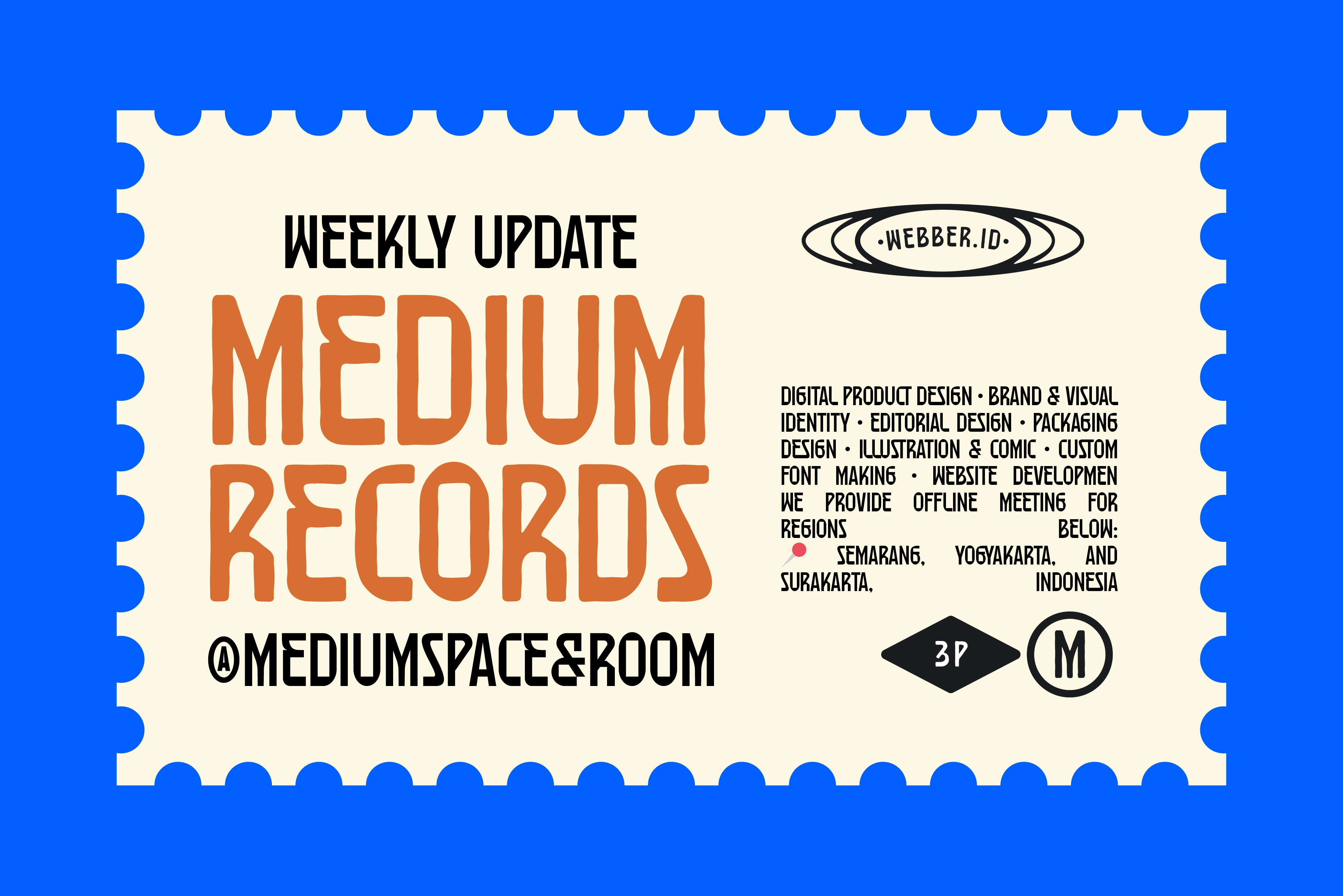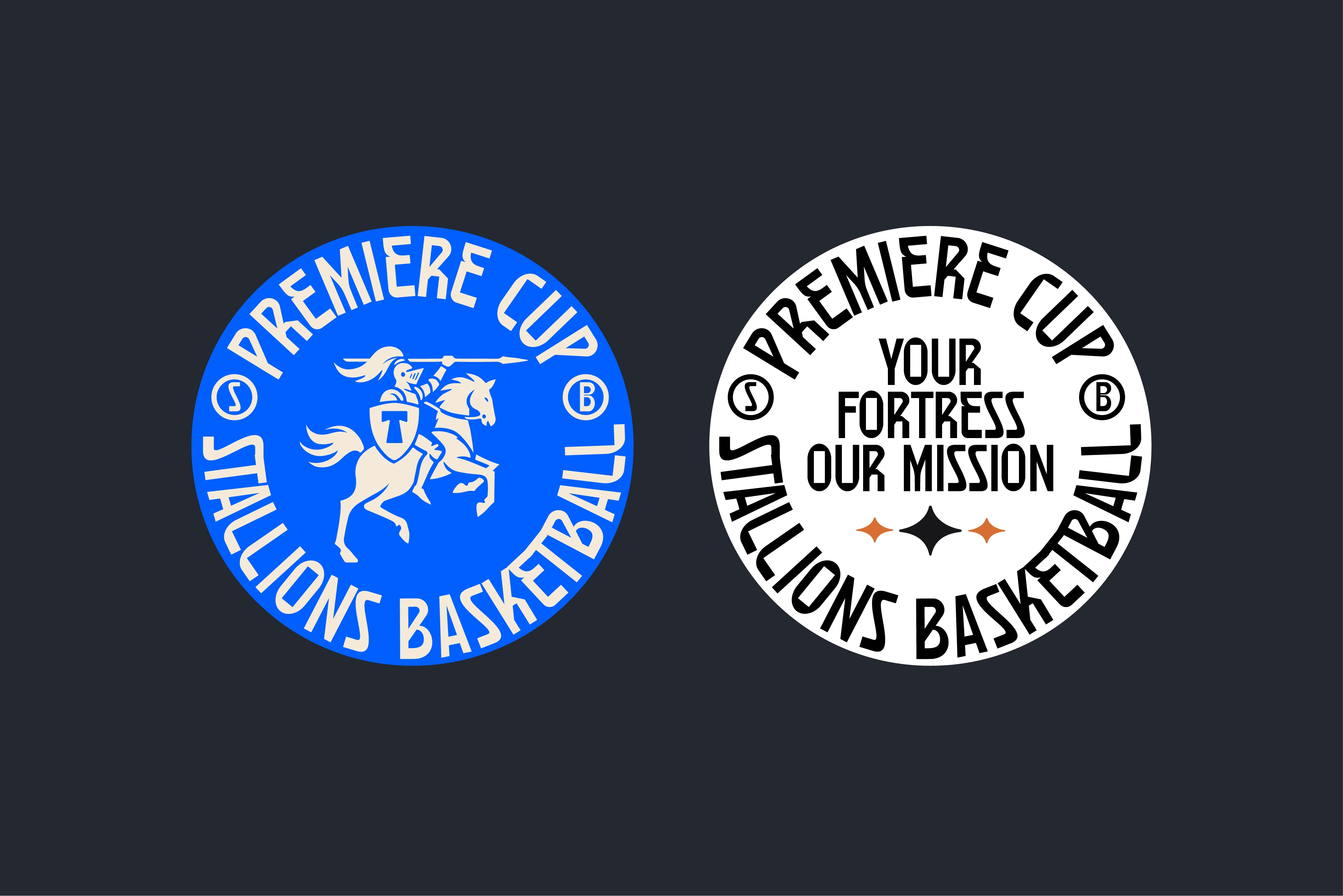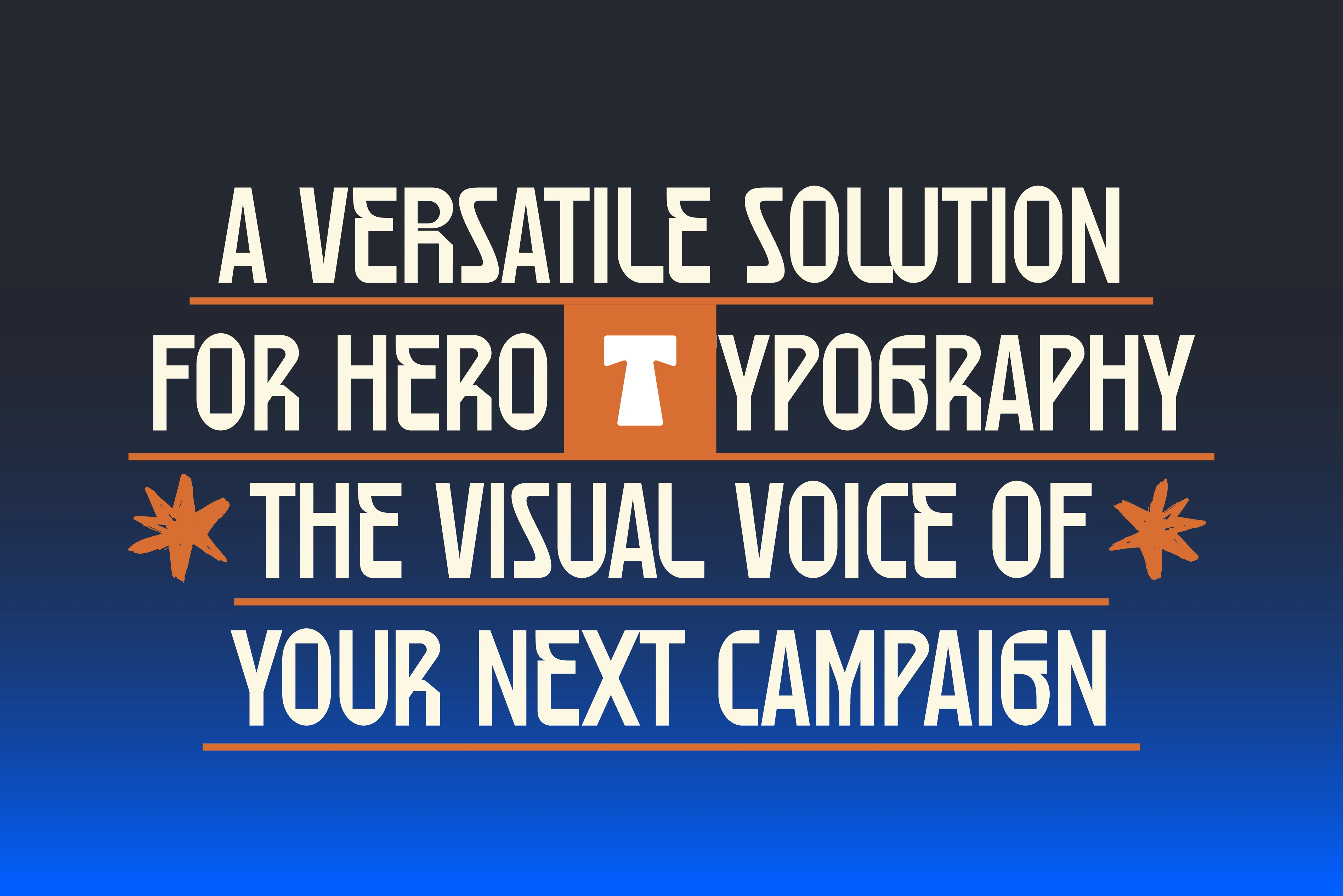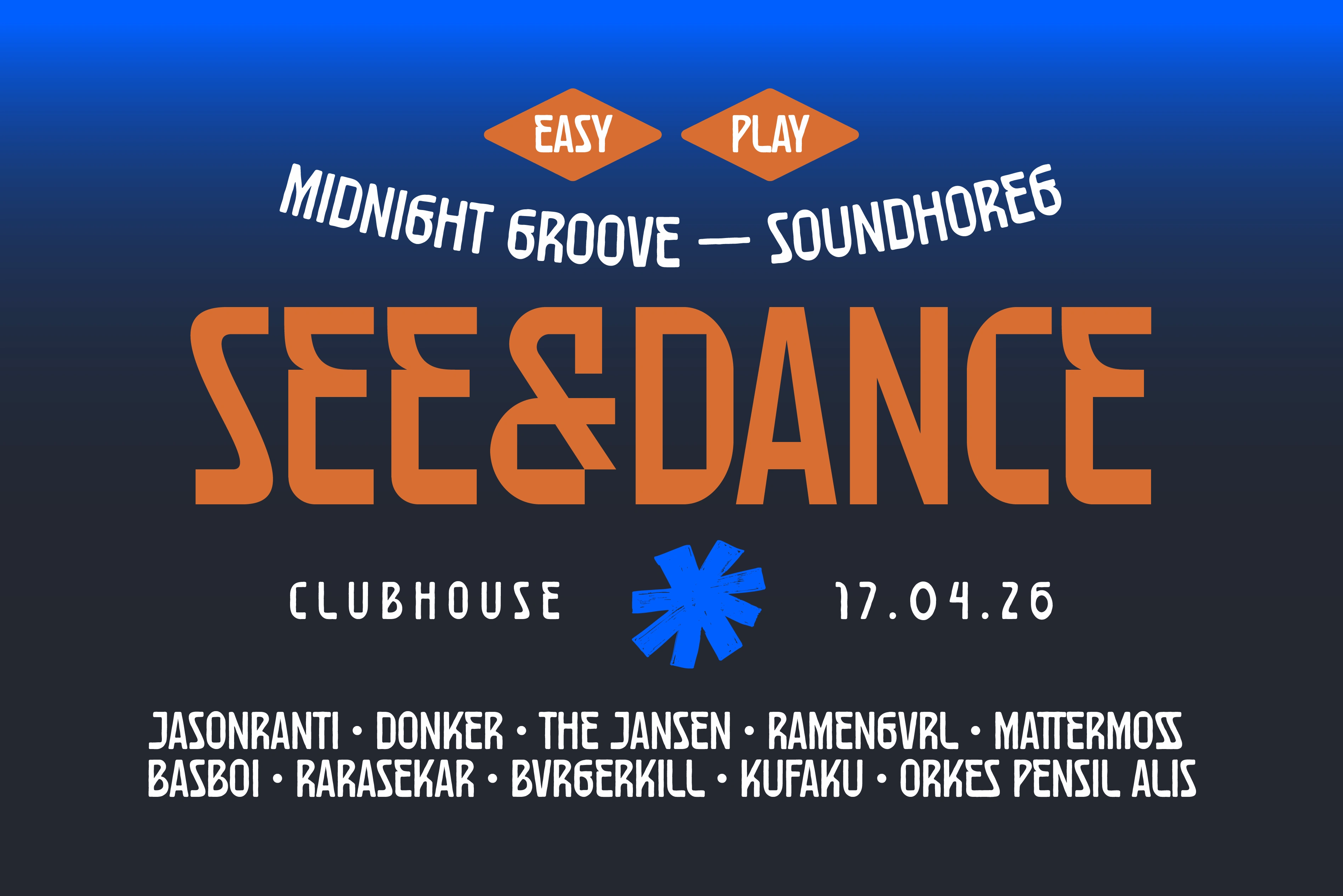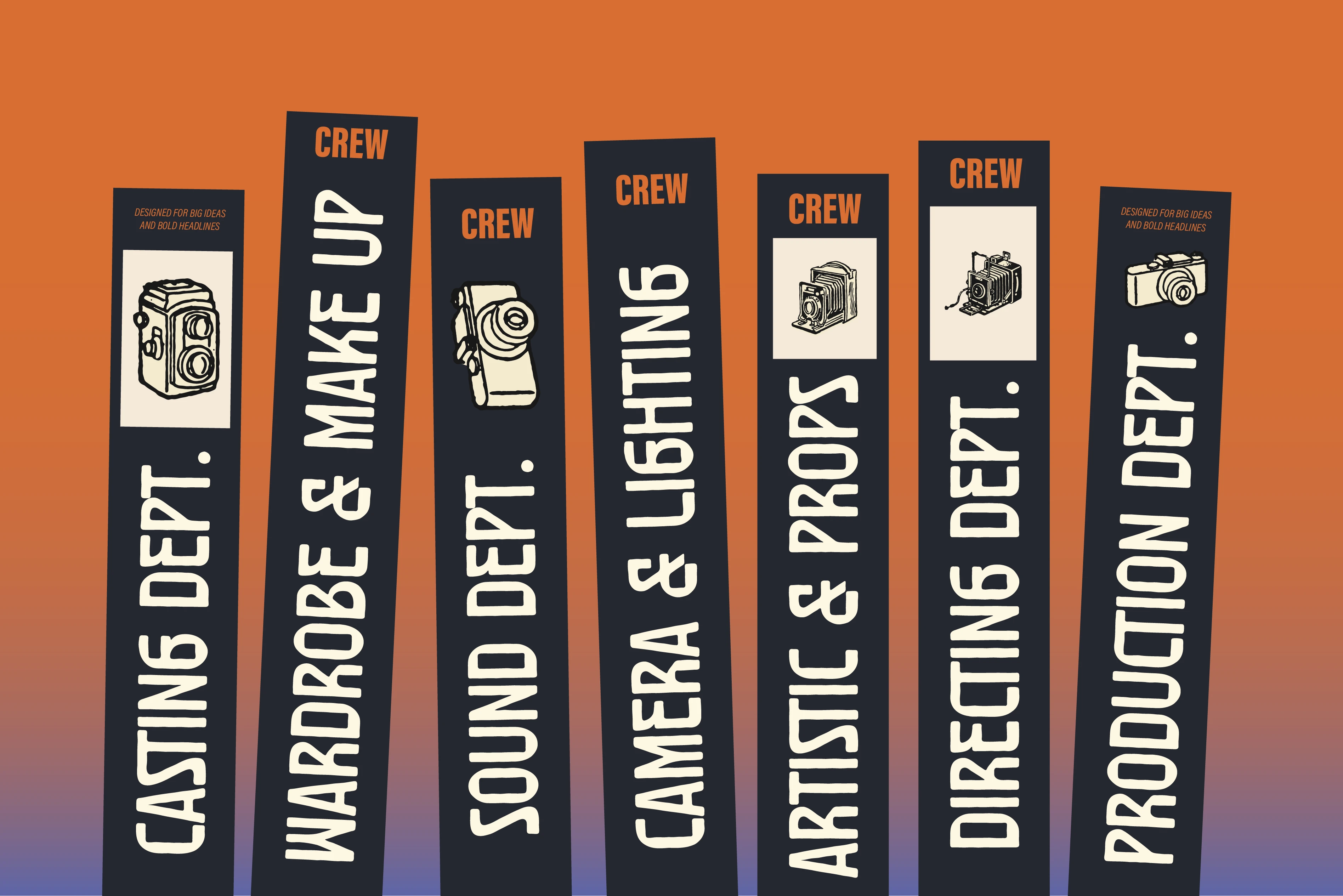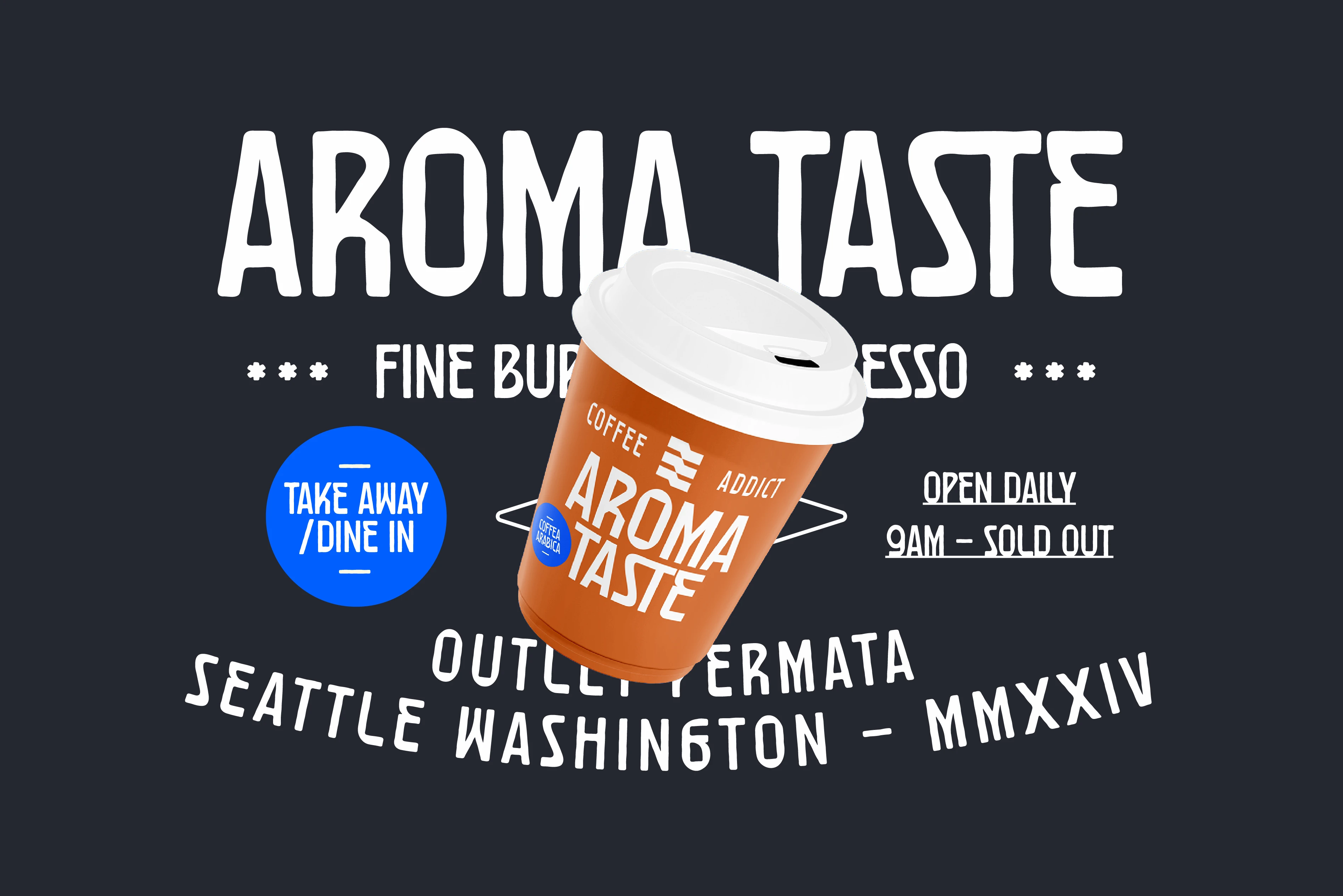
ST Friday Display Typeface
Bring the "Friday Feeling" to your design.
ST Friday is a charismatic display typeface designed to capture the relaxed, spirited, and creative energy of the weekend. With its chunky, hand-drawn curves and playful silhouette, this font is perfect for creators who want to add a touch of authentic, "casual-cool" character to their work.
Whether you're working on a bold brand identity, eye-catching packaging, or vibrant social media graphics, ST Fridaydelivers a professional look without losing its friendly, human touch.